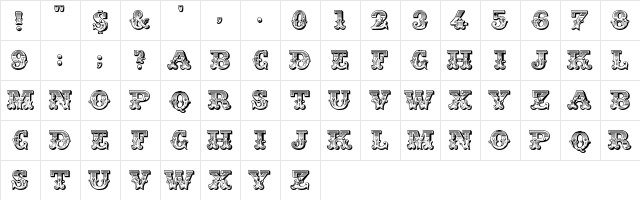
JFRingmaster Regular
| Designer | JF Slater from a 19th century original |
Design Context for JFRingmaster Typeface
JFRingmaster is a composed and adaptable typeface that performs quietly and consistently across a wide range of design contexts.